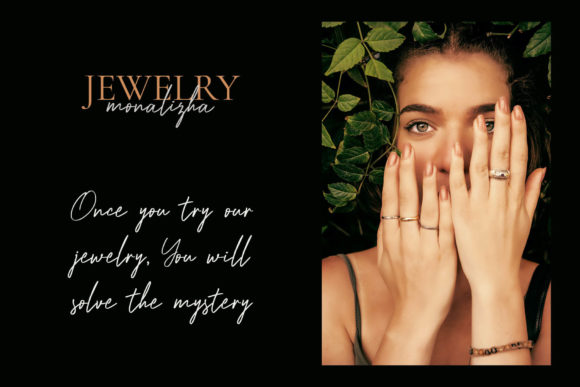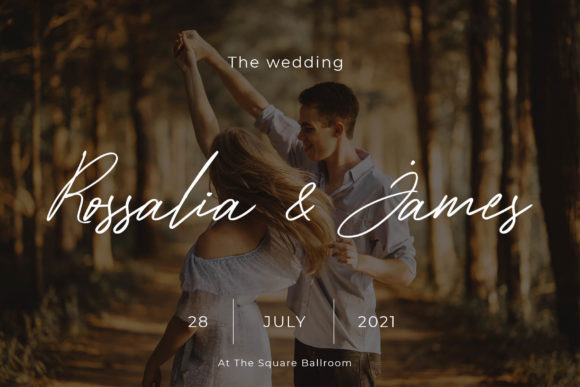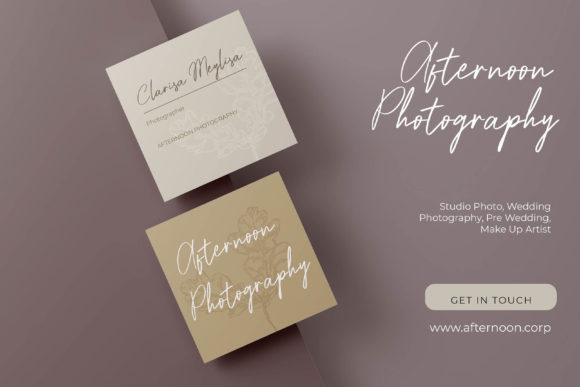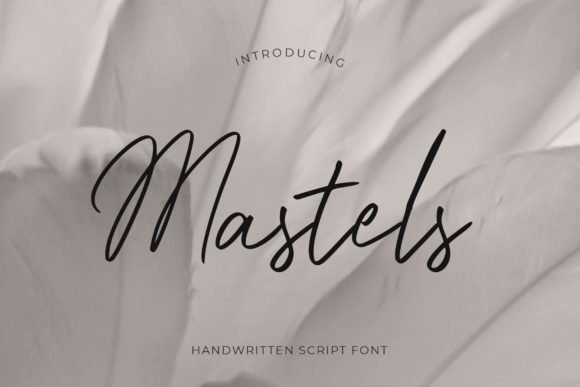
Introduction to Mastels Font
Mastels is a lovely and delicate script font that exudes elegance and class.
This font was particularly crafted for those who need a beautiful and refreshing look to their designs .
Why Choose Mastels Font?
Mastels Font offers exceptional quality and versatility, making it a valuable addition to your design toolkit. Whether you’re creating for personal projects or commercial use, Mastels Font delivers professional results.